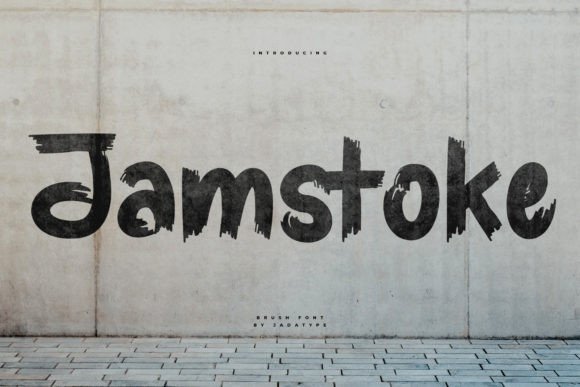
Unleash the playful spirit of your Kids Ministry with Jamstoke Font, a whimsical and captivating display font crafted by jadatype. This font is a masterpiece of creativity, designed to inspire and engage young minds while adding a touch of magic to your projects.
With its energetic brush strokes and playful curves, Jamstoke Font brings life to your words, creating a world where imagination knows no bounds. Whether you're designing posters, flyers, invitations, or social media posts, Jamstoke Font will make your messages pop with personality and charm.
Transport your young audience to a world of wonder and adventure with Jamstoke Font. Its playful characters dance across the page, capturing attention and sparking imaginations. Let the vibrant energy of Jamstoke Font ignite your Kids Ministry materials, creating an unforgettable experience that kids will love.
Step into the world of Jamstoke Font and watch your creative ideas come to life. Embrace the magic of this enchanting font and watch as your projects leap off the page, captivating young hearts and minds. Make a lasting impression with Jamstoke Font, the ultimate choice for any Kids Ministry seeking to connect with its audience in a truly special way.